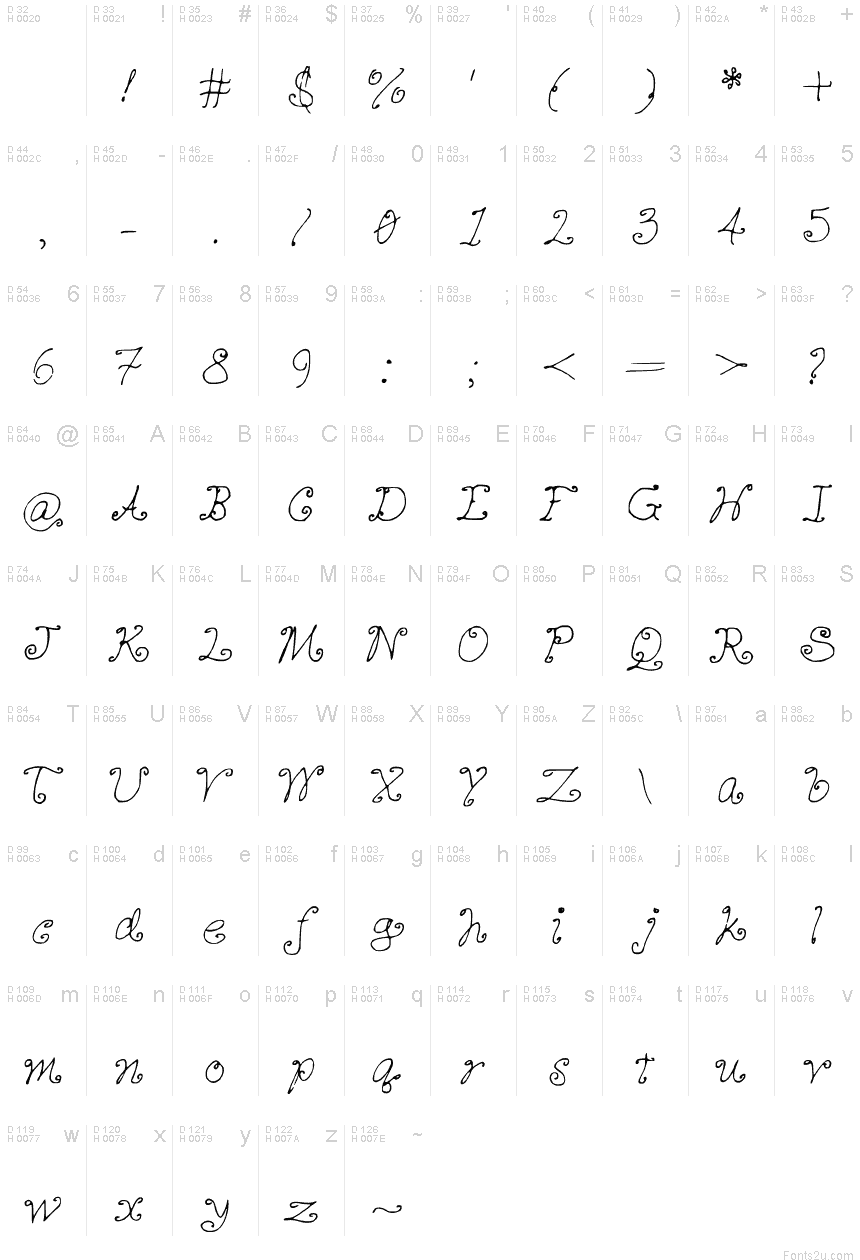
Cutie Queues is a free curly display font with the loose touch of hand-drawn lettering. Tall, looping strokes give the alphabet a lively, wandering silhouette. Small curls and rounded hooks appear throughout, turning even simple letter shapes into decorative marks.
Party invitations are its most convincing setting, especially when the design calls for a playful, homemade air. The same fanciful curves suit children's book covers, craft packaging, and music posters, where the lettering can echo doodles, ribbons, or storybook illustration.
Cutie Queues is a free display font based on the designer’s handwriting.